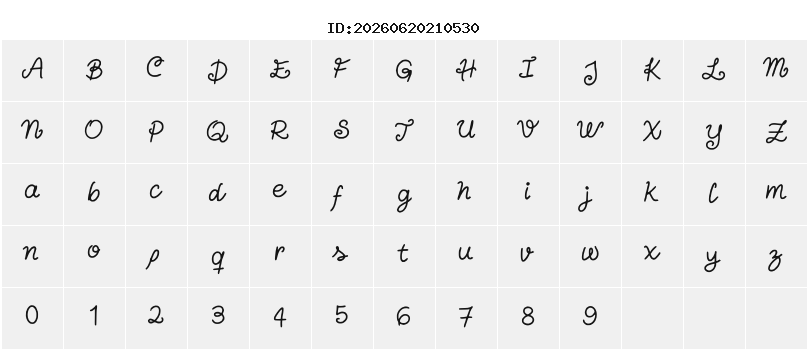
Fafo Script Preview
• Font Name: Fafo Script
• Full Font Name: Fafo Script Regular
• Designer: Fafo Ferrao
• Description: Handmade font made in Procreate with the brush Narinder Pencil.